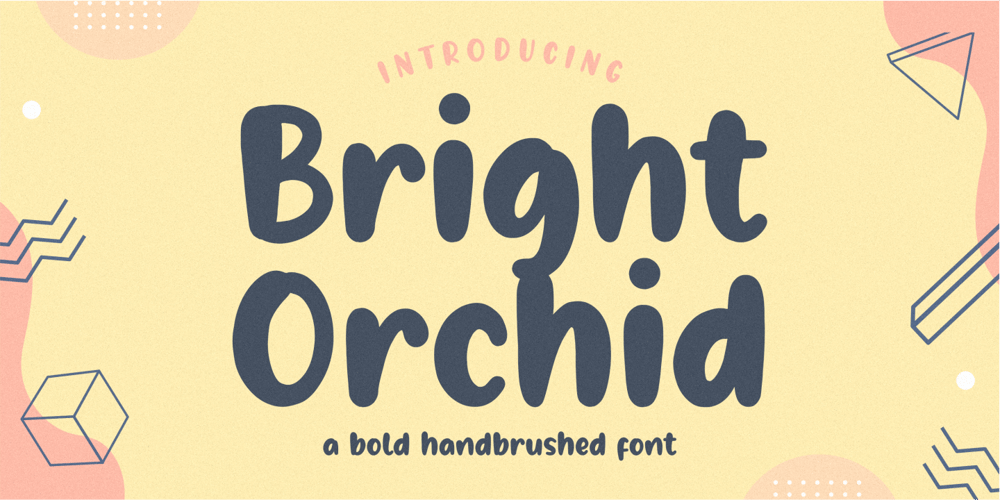
Bright Orchid Font Family was designed by Restu Angga and published by Balpirick. Bright Orchid contains 1 styles and family package options. Bright Orchid is a Bold Handbrushed Font.Bright Orchid is perfect for product packaging, branding project, megazine, social media, wedding, or just used Bright Orchid has multilingual support.Enjoy the font, feel free to comment or feedback, send me PM or email.Thank you!